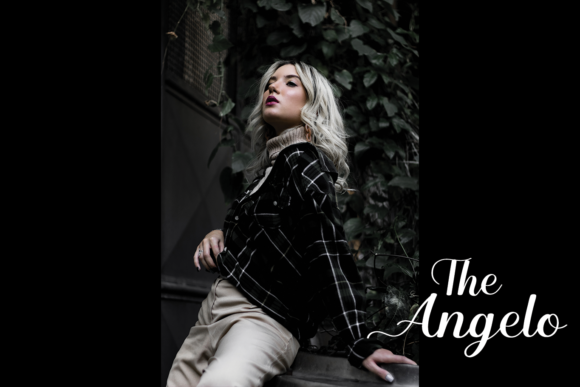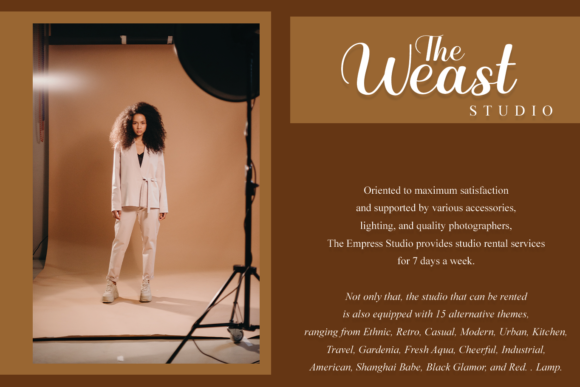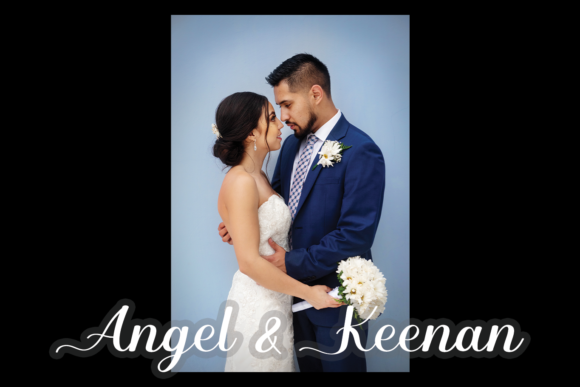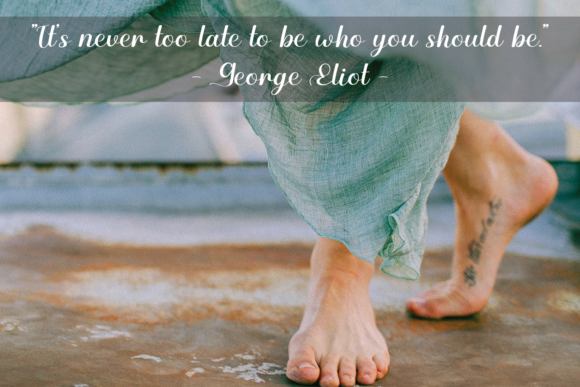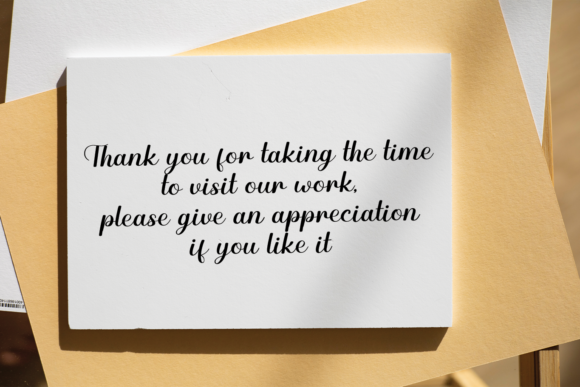
Introducing December Font: Elevate Your Designs with Elegance
Are you on the hunt for a font that exudes elegance and sophistication? Look no further than December Font, a stunning script font that is sure to captivate your audience. With its flowing and graceful design, December Font is perfect for creating beautiful wedding invitations, stationary art, social media posts, and more!
The Charm of December Font
December Font is a ravishing script font that boasts a unique and eye-catching style. Its elegant design makes it an ideal choice for designers and crafters who want to add a touch of sophistication to their work. Whether you’re creating wedding invitations, greeting cards, or social media graphics, December Font is sure to make your designs stand out.
What Makes December Font Special?
- Flowing and Graceful Design: December Font features a beautiful, cursive design that flows effortlessly across the page. Its smooth lines and curves create a sense of elegance and refinement.
- Versatile: December Font is perfect for a wide range of design projects, from wedding invitations and stationary art to social media posts and more.
- Easy to Read: Despite its elegant design, December Font is easy to read, making it perfect for body text and headlines.
- Customizable: With December Font, you can create unique and personalized designs that reflect your brand or style.
Ideas for Using December Font
December Font is a versatile font that can be used in a variety of design projects. Here are some ideas to get you started:
- Wedding Invitations: Create beautiful and elegant wedding invitations that set the tone for the big day.
- Stationary Art: Design stunning stationary art, including greeting cards, thank you cards, and more.
- Social Media Posts: Add a touch of elegance to your social media posts, including Instagram graphics, Facebook posts, and more.
- Branding and Packaging: Use December Font to create custom branding and packaging that reflects your brand’s personality.
Tips for Working with December Font
Here are some tips for getting the most out of December Font:
- Pair with Other Fonts: Experiment with pairing December Font with other fonts to create unique and interesting combinations.
- Play with Size and Color: Don’t be afraid to experiment with different sizes and colors to add depth and interest to your designs.
- Use it Sparingly: Use December Font sparingly to create emphasis and add elegance to your designs.
December Font is a beautiful and elegant script font that is perfect for designers and crafters who want to add a touch of sophistication to their work. With its flowing and graceful design, December Font is sure to captivate your audience and elevate your designs. Whether you’re creating wedding invitations, stationary art, social media posts, or more, December Font is the perfect choice.
Get Ready to Fall in Love with December Font
So why wait? Fall in love with December Font and start creating stunning designs that showcase its elegance and sophistication. With its versatility, ease of use, and beautiful design, December Font is sure to become a favorite in your design arsenal.